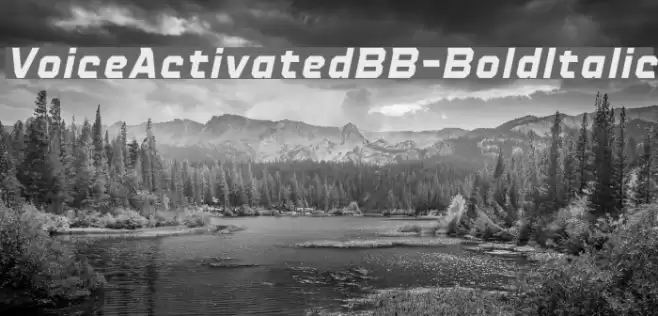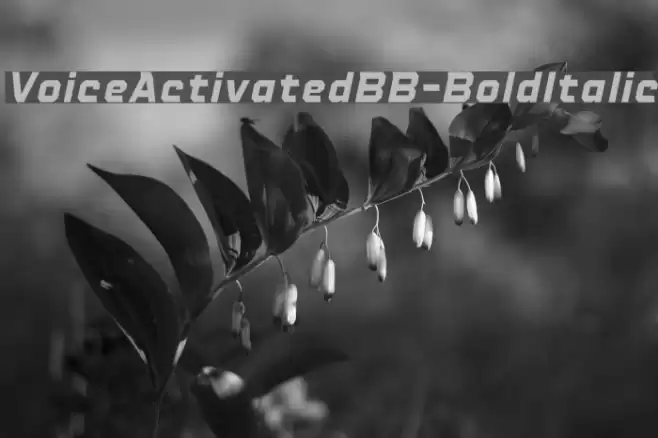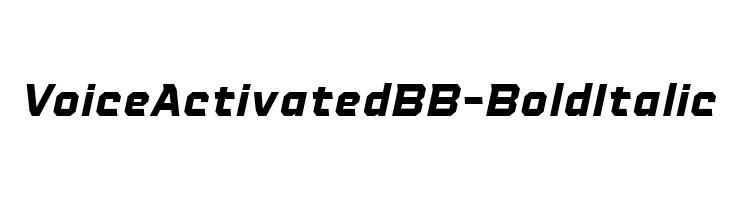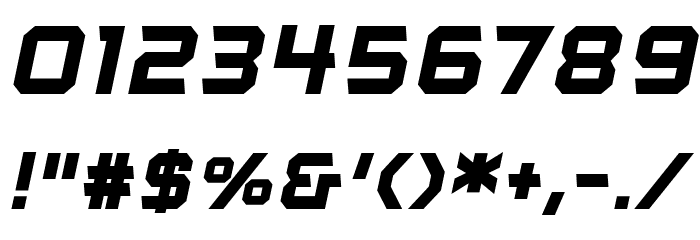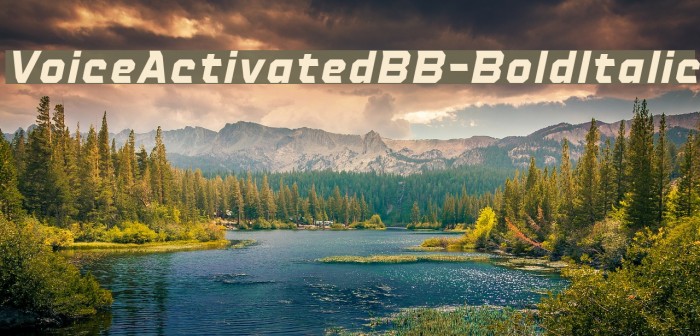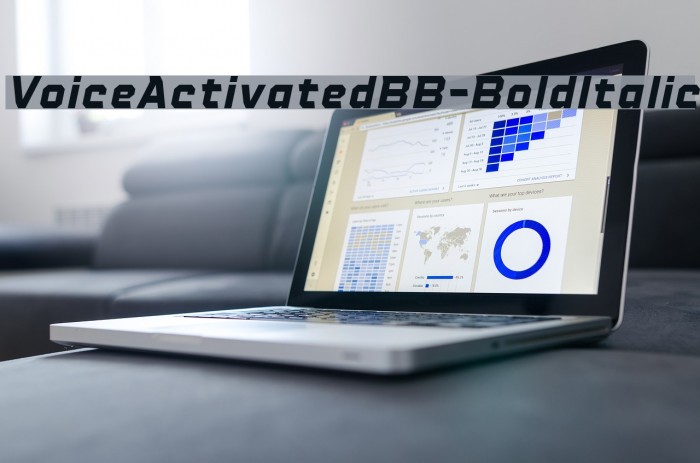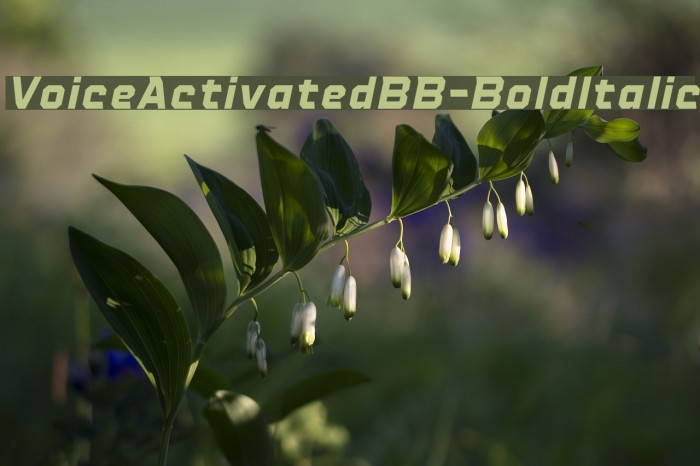
VoiceActivatedBB-BoldItalic Font
VoiceActivatedBB-BoldItalic Description
This font features a bold and italicized style with a modern, angular design. The characters are slightly slanted, giving a sense of motion and dynamism. The uppercase and lowercase letters maintain a consistent geometric structure, with sharp edges and a futuristic appearance. The numbers and special characters follow the same design principles, ensuring uniformity across all glyphs. The font's boldness is complemented by its italic nature, making it suitable for attention-grabbing headlines or impactful branding. The spacing between characters is tight, enhancing its compact and cohesive look.
A bold, italicized font with a modern, angular design and tight character spacing from Uncategorized fonts.
- Proposed Projects: Ideal for futuristic branding, technology-related projects, sports team logos, and dynamic headlines.
- Character Spacing: Tight